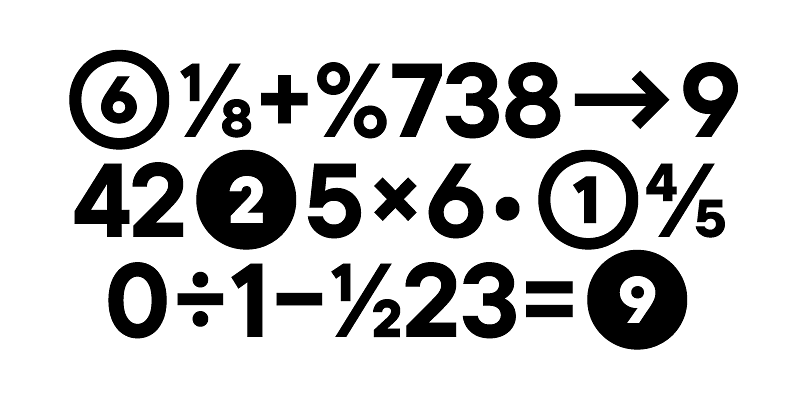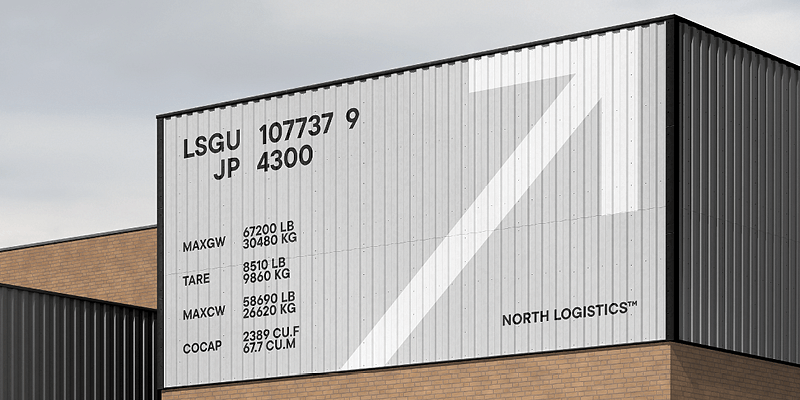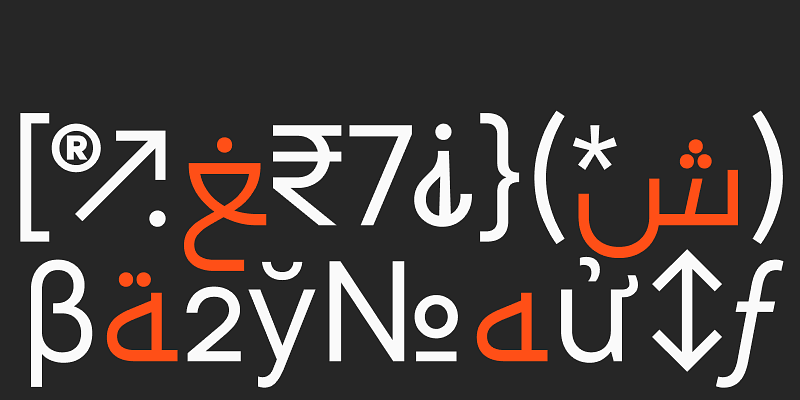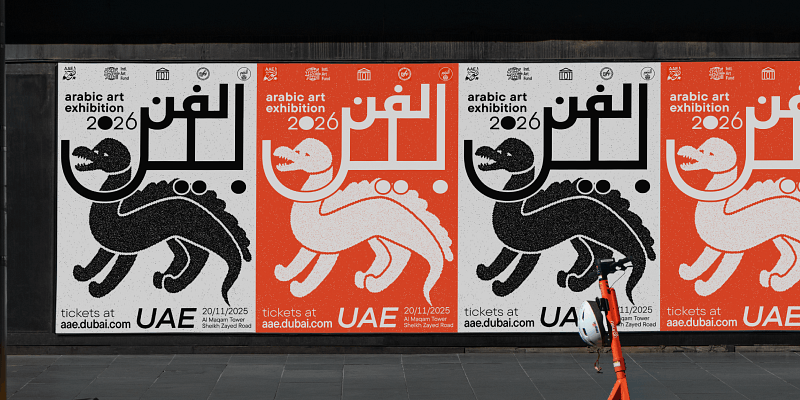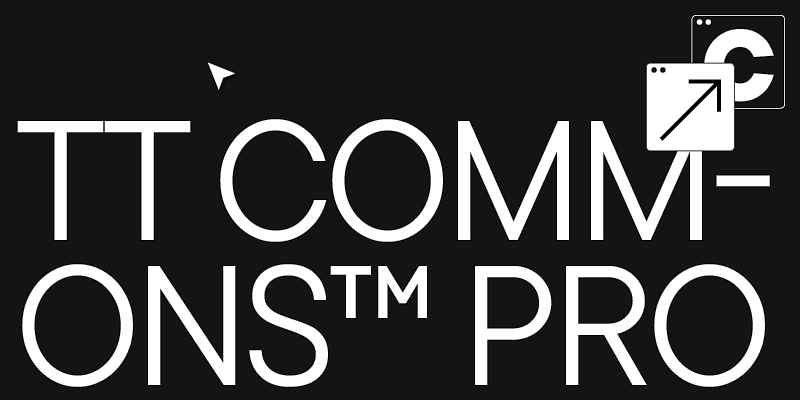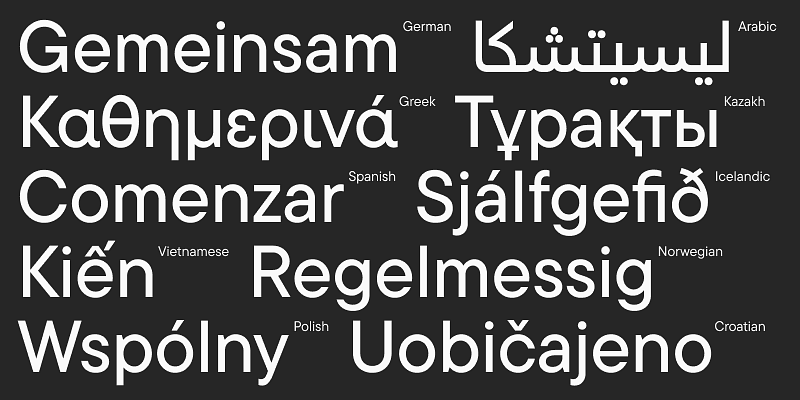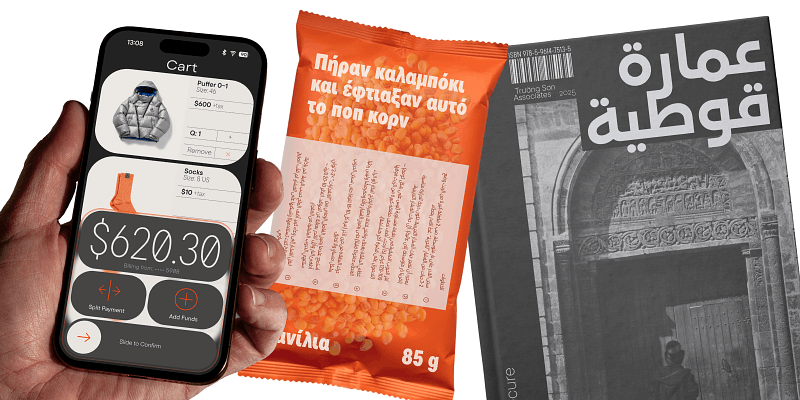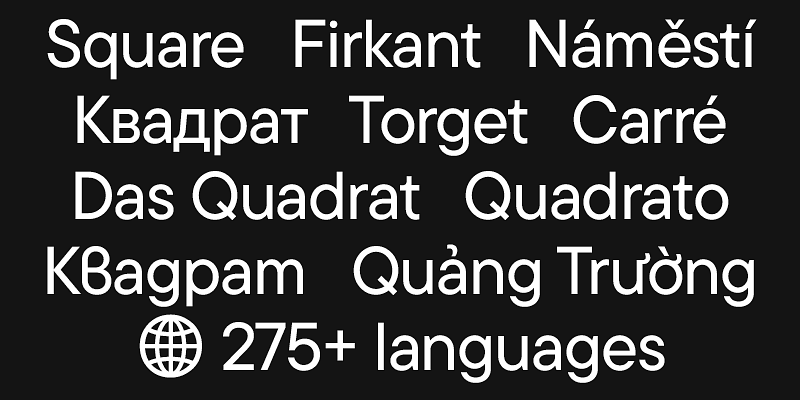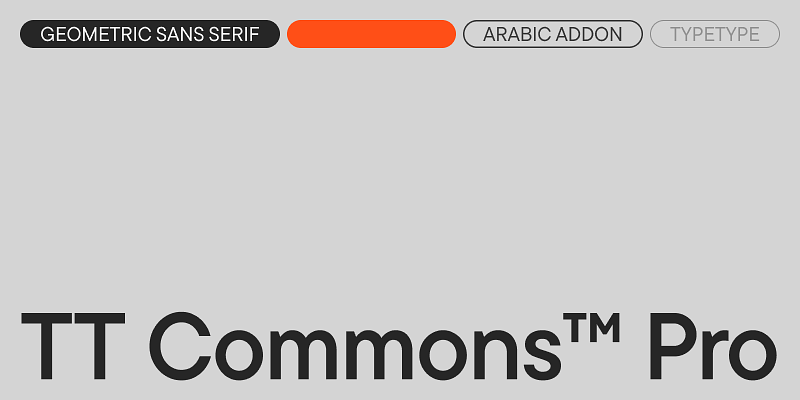
TT Commons™ Pro is a geometric sans serif. It is one of the studio’s most in-demand typefaces, recognized for its versatile character, extensive character set with support for a vast number of languages, and a functional set of OpenType features. Among the case studies featuring this font are tech companies, apparel brands, charitable organizations, food products, and many more. If you need an all-purpose typeface that is suitable for both everyday tasks and creating stylish designs—you’ve found it!